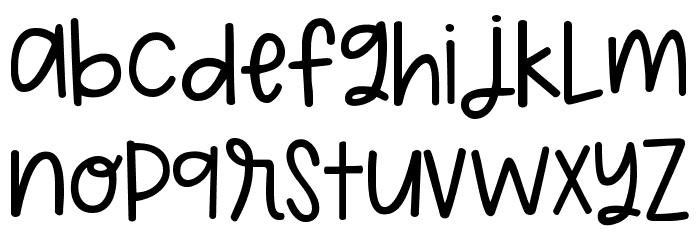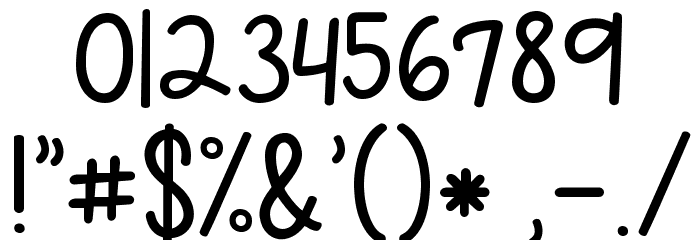
KG Head Above Water Regular Font
This font features a playful and casual handwritten style, characterized by its smooth, rounded edges and consistent stroke width. The letters are slightly tilted, adding a dynamic and informal feel. The uppercase and lowercase characters maintain a uniform height, creating a harmonious appearance. The numerals and special characters are designed to match the overall aesthetic, ensuring a cohesive look across all text elements. This font exudes a friendly and approachable vibe, making it suitable for projects that aim to convey warmth and personality.
A playful, casual handwritten font with smooth, rounded edges.
- Font: KG Head Above Water Regular
- Proposed Projects: Ideal for greeting cards, children's books, playful branding, and social media graphics.
- Category: Handwritten
- Overall Style: Casual
- Use Case: Logos, Headlines, Informal Text